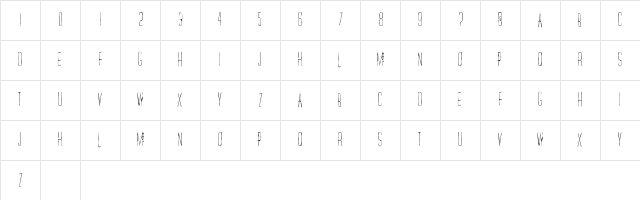
RedlightDistrict is a composed and adaptable typeface that performs quietly and consistently across a wide range of design contexts. Its slender proportions lend an understated elegance to any composition.